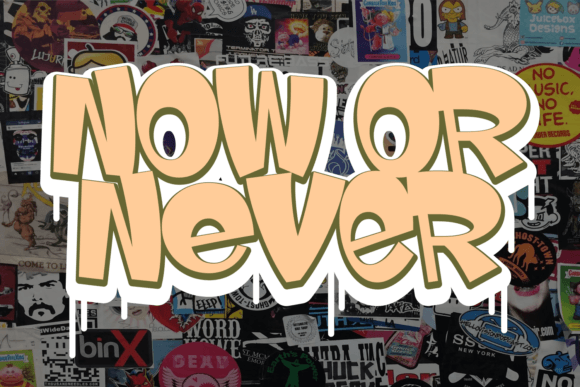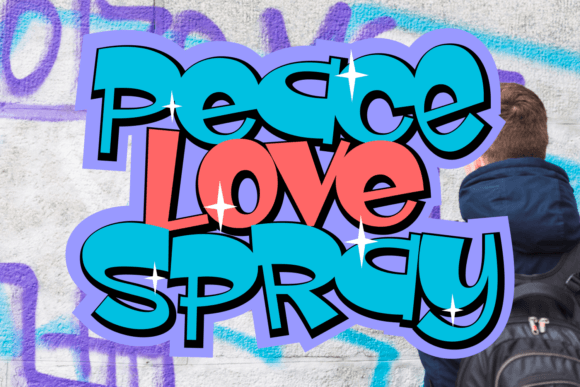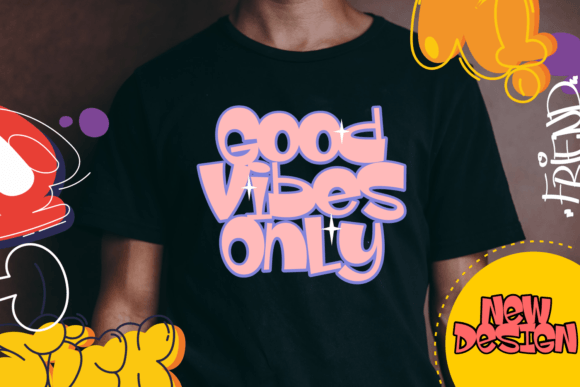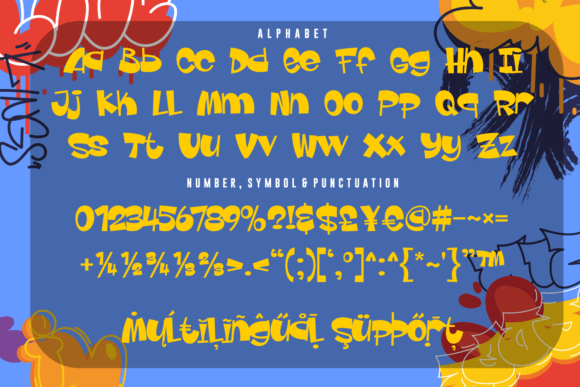
Introduction to Masrust Font
Masrust is an urban and expressive typeface that embodies the rebellious and vibrant nature of street art.
Inspired by the bold and energetic brushstrokes found on city walls, this font captures the essence of graffiti culture The letters in this font are characterized by their irregular shapes and exaggerated proportions.
Key Features of Masrust Font